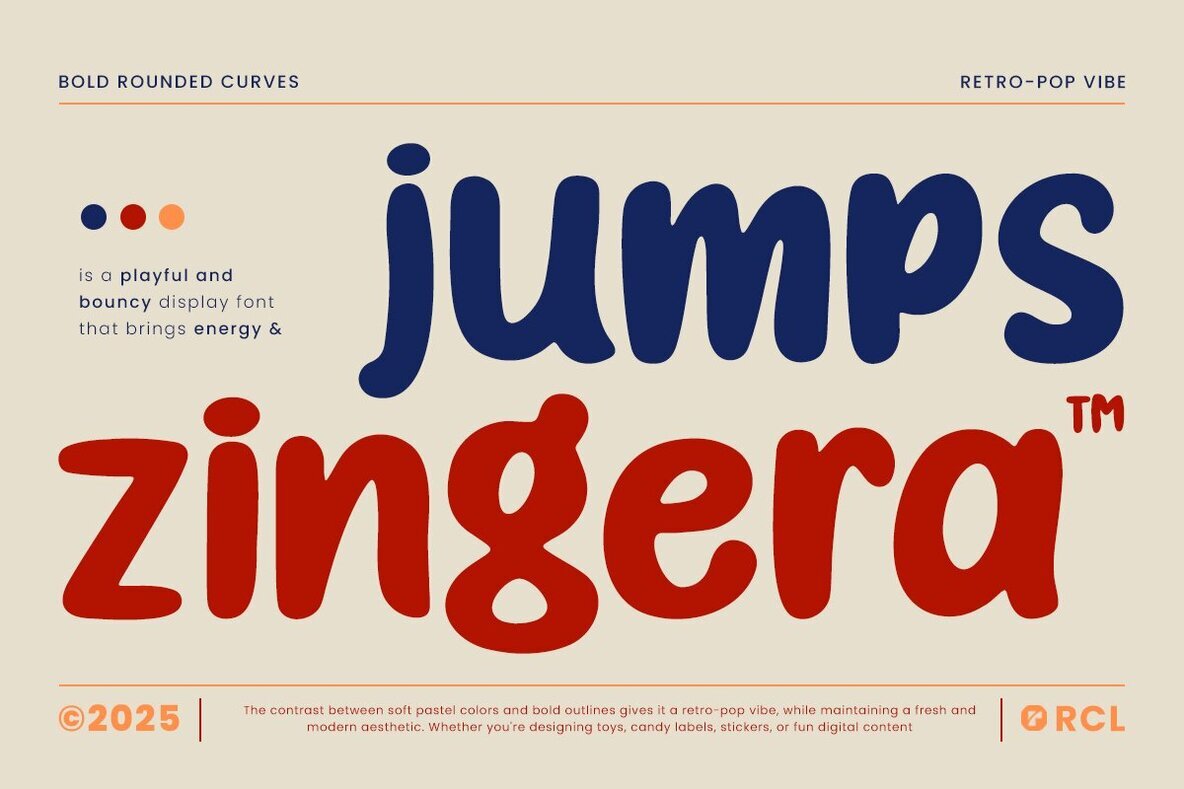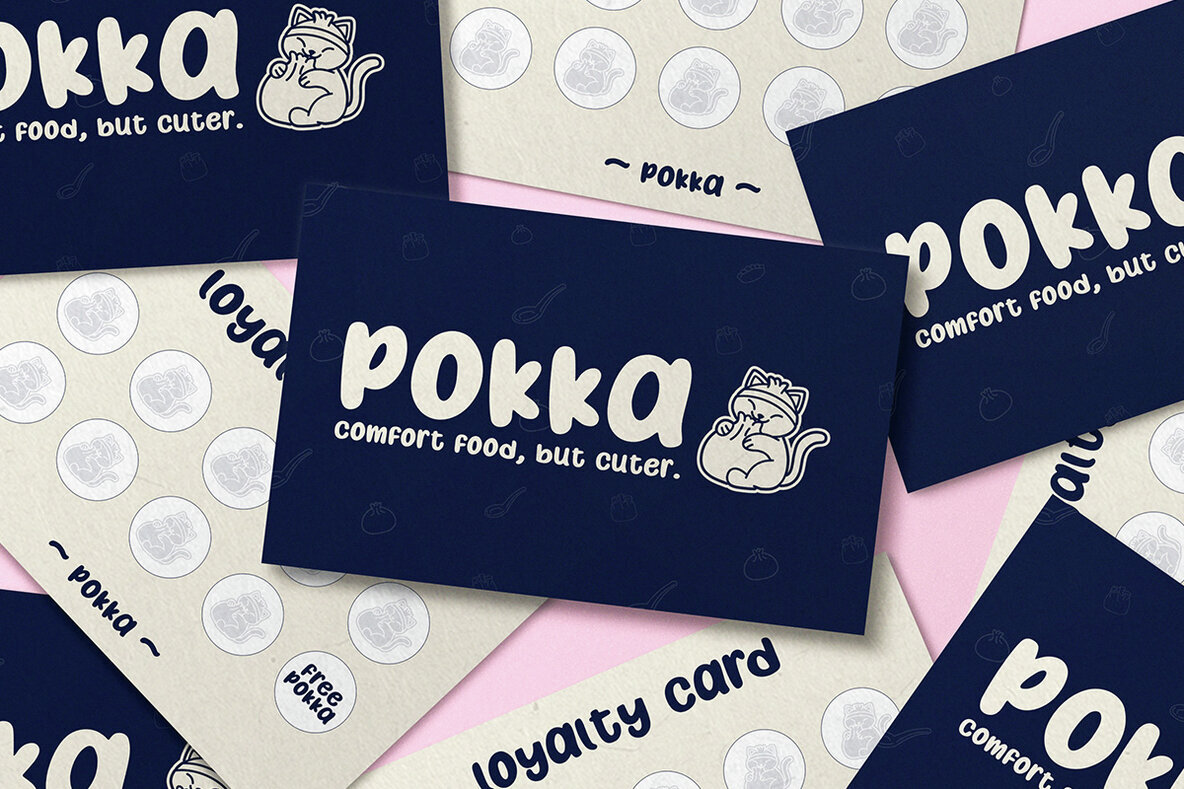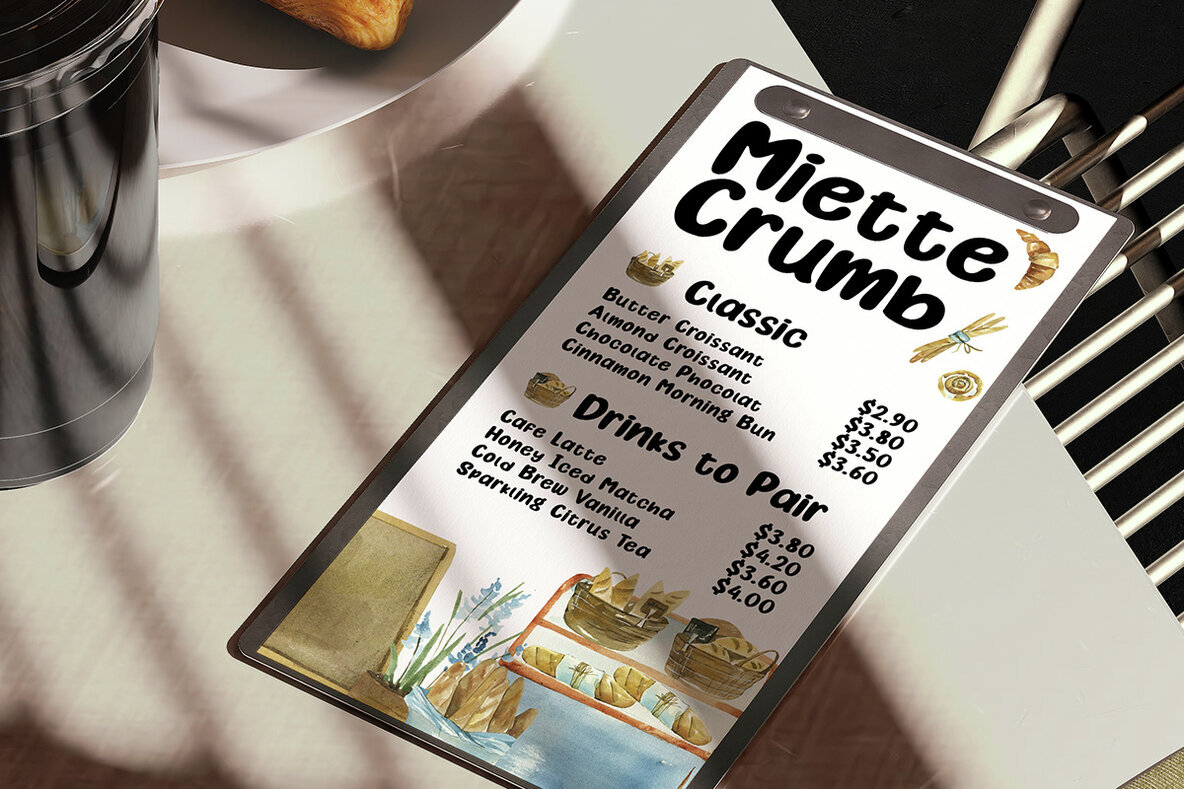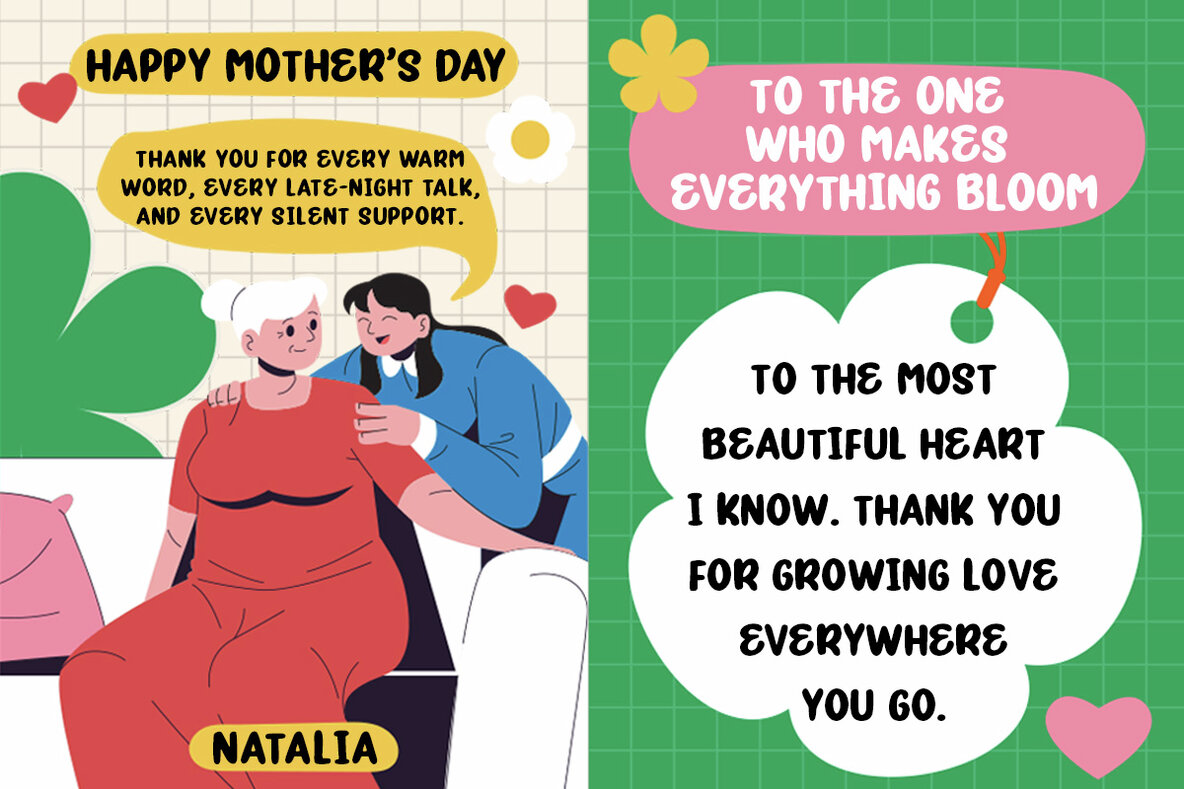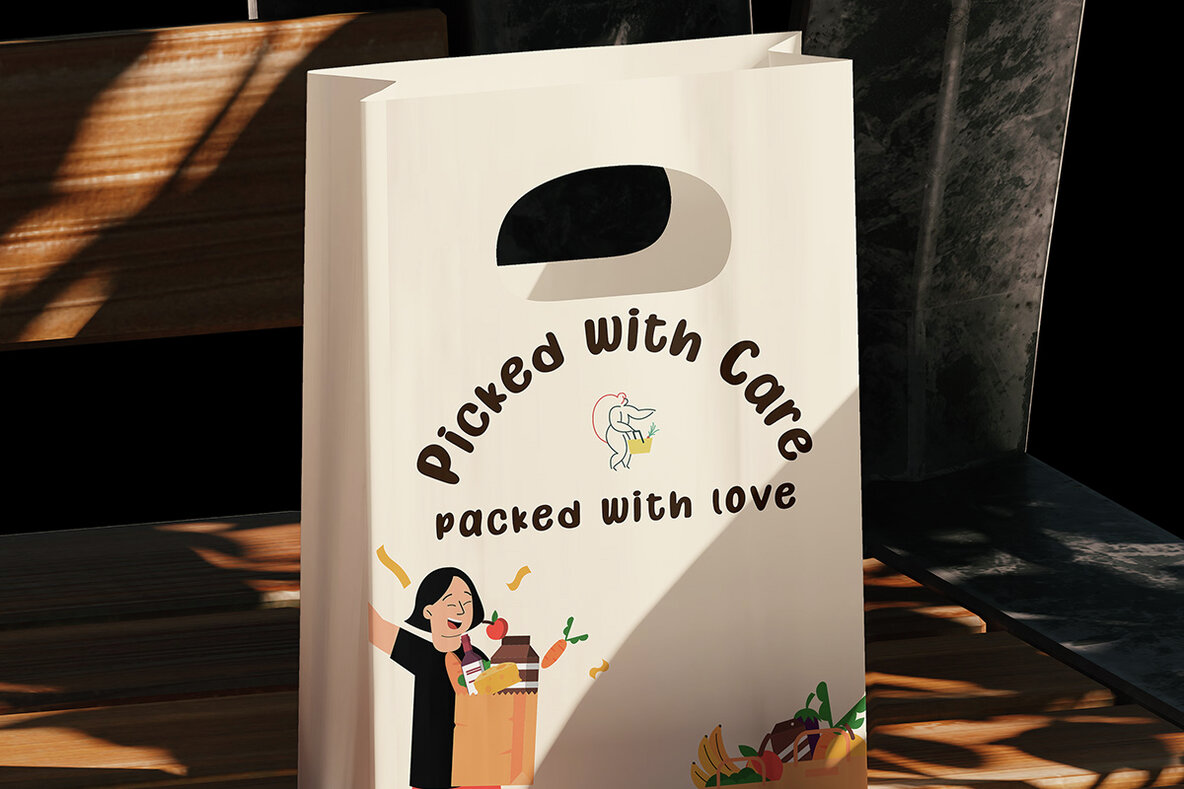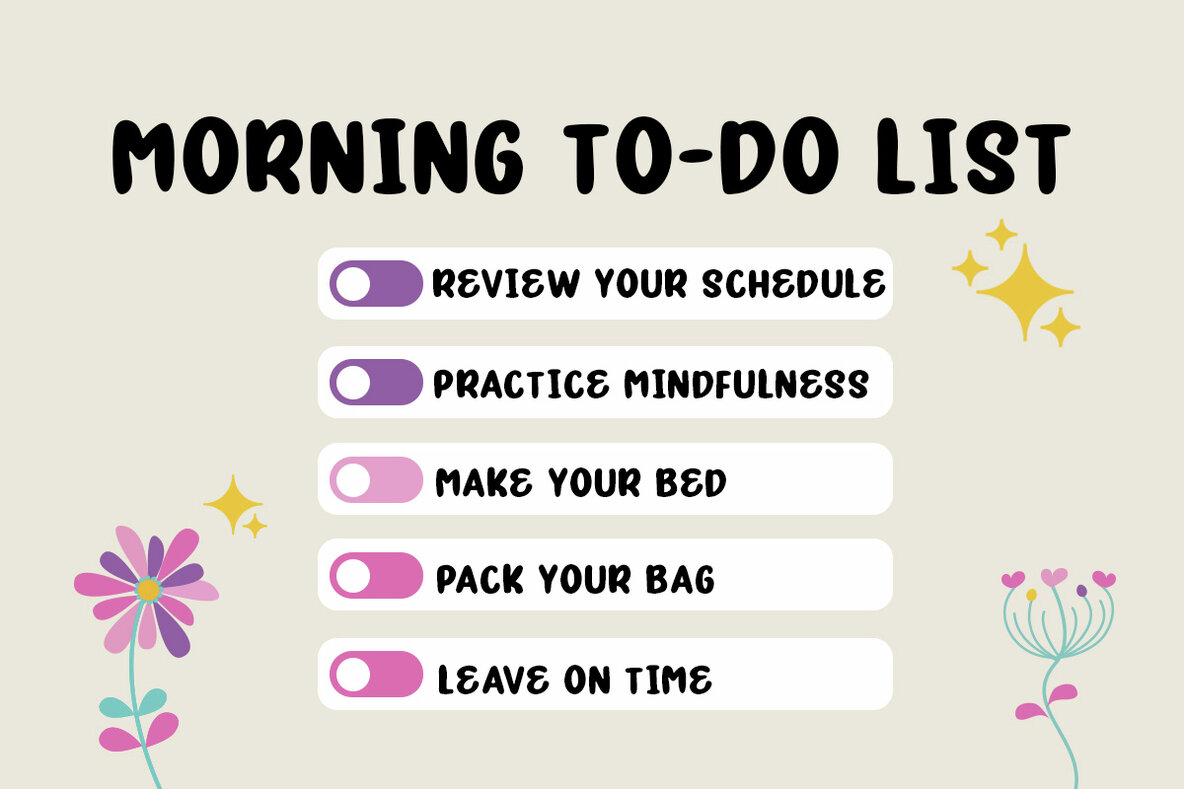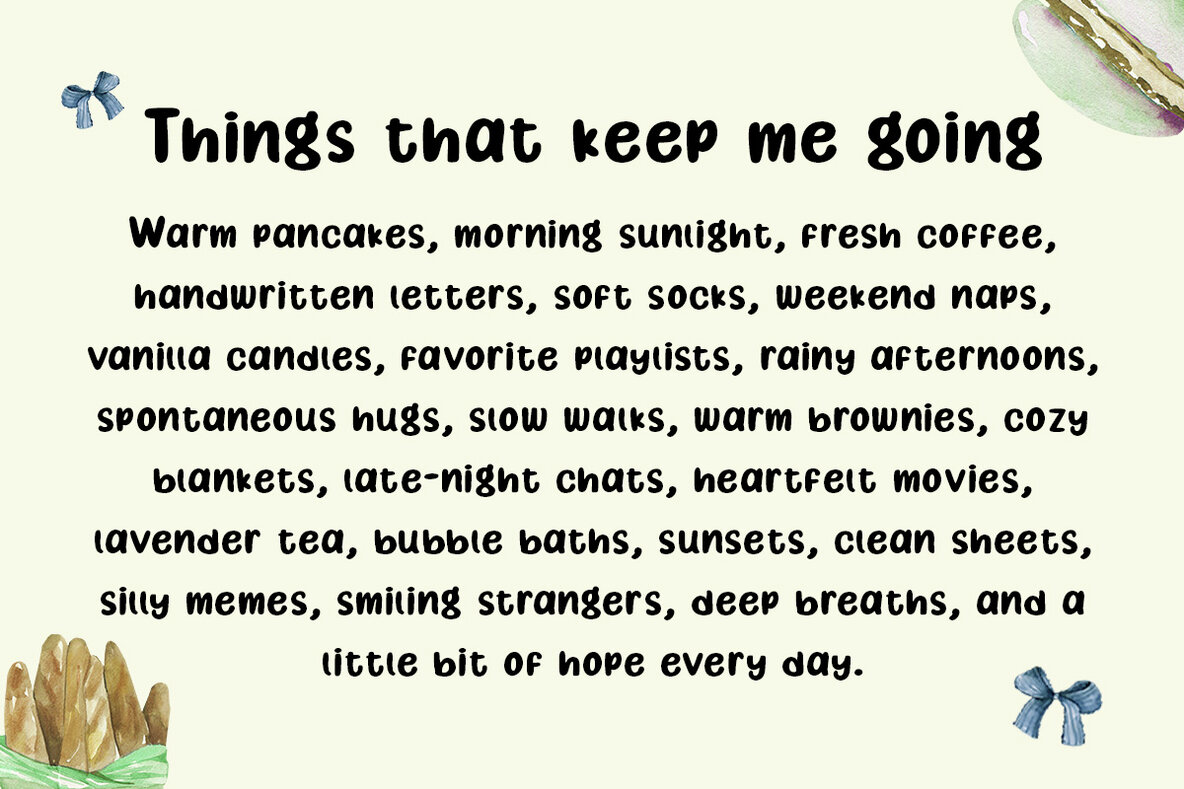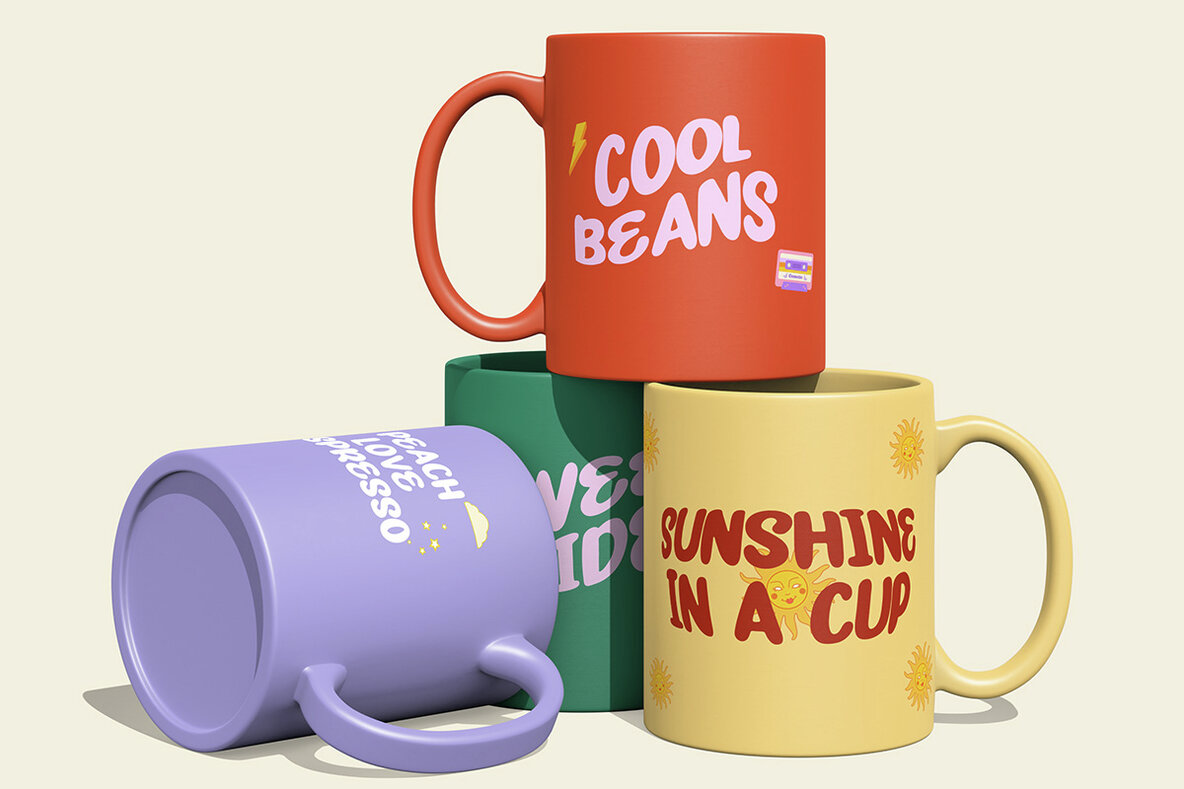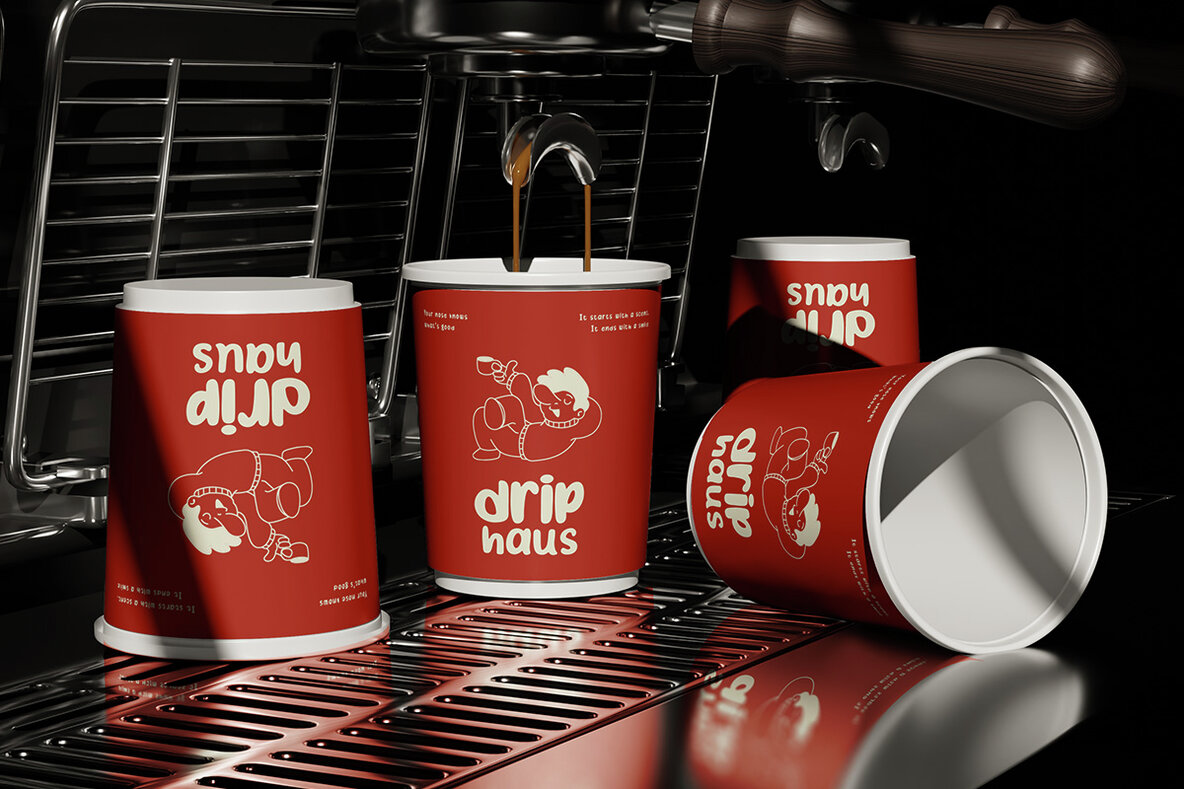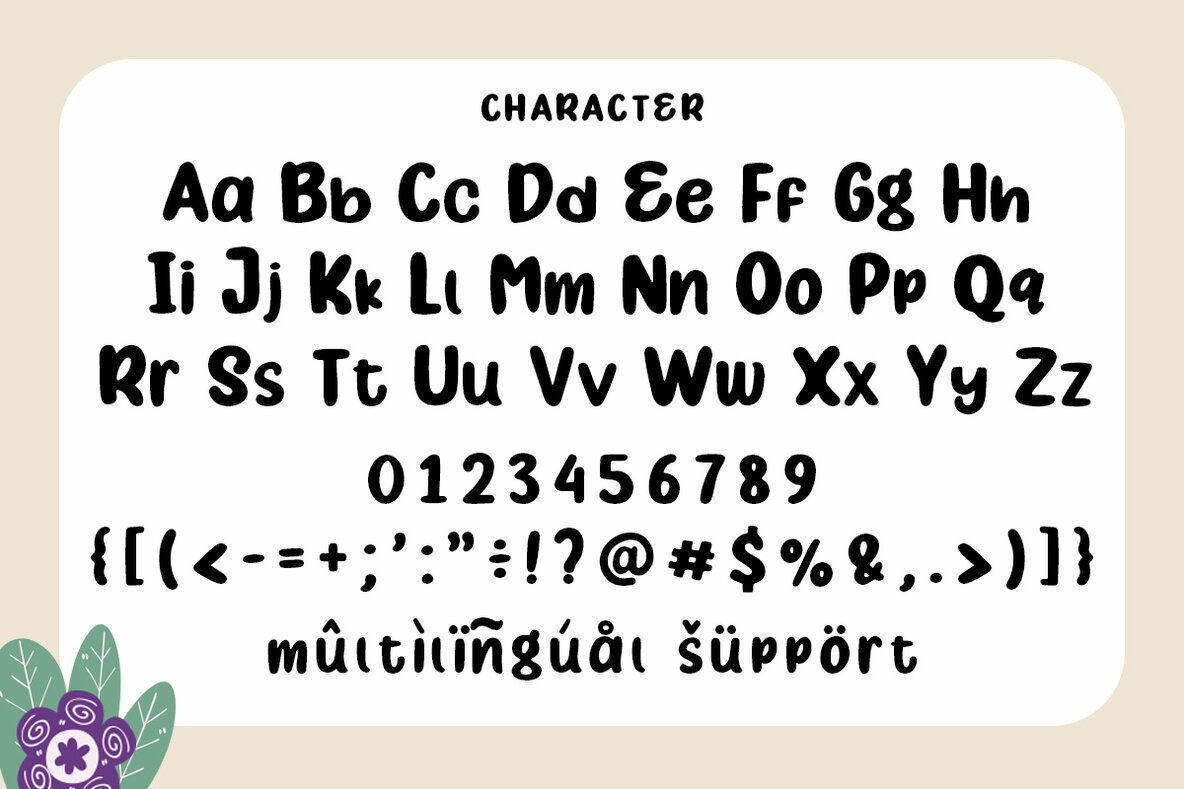
Jump Zingera Font
Jump Zingera Regular
Jump Zingera is a vibrant and bold display font imbued with personality, curves, and retro-pop flair. With smoothly rounded forms and a lively bounce, it brings joy and energy to any project. Ideal for creative work that seeks a friendly, nostalgic, and bold aesthetic, Jump Zingera is perfect for designing candy labels, toy packaging, children's books, and quirky brand identities. The font's vibrant structure paired with its retro feel makes it an excellent choice for both digital and print projects that require attention while remaining approachable. Jump Zingera invites you to have fun with typography, infusing designs with vitality and expression.Jump Zingera: A Playful Display Font